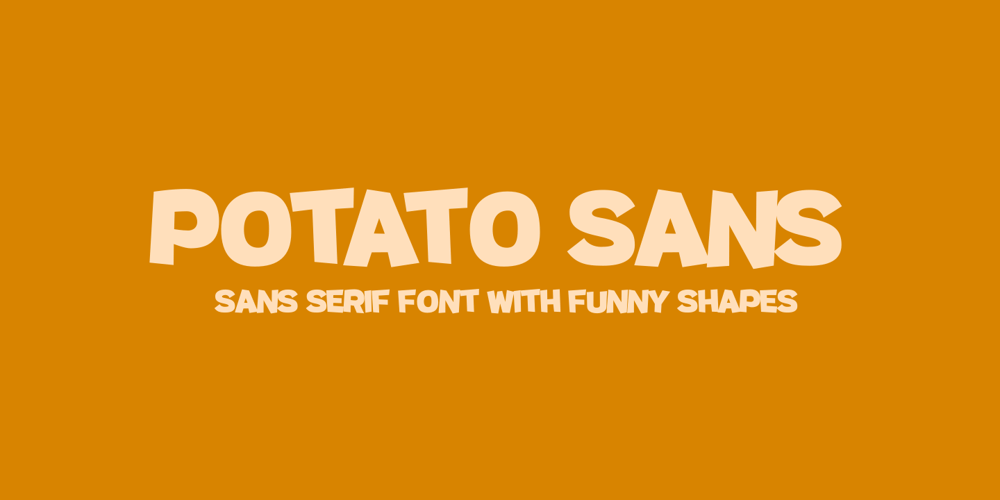
Potato Sans Font Family was designed by Arief Rochman and published by 4RM Font. Potato Sans contains 2 styles and family package options. Made with a cute shape, making this font suitable for use in graphic designs related to unique things. This font is available in 2 styles namely bold and black.